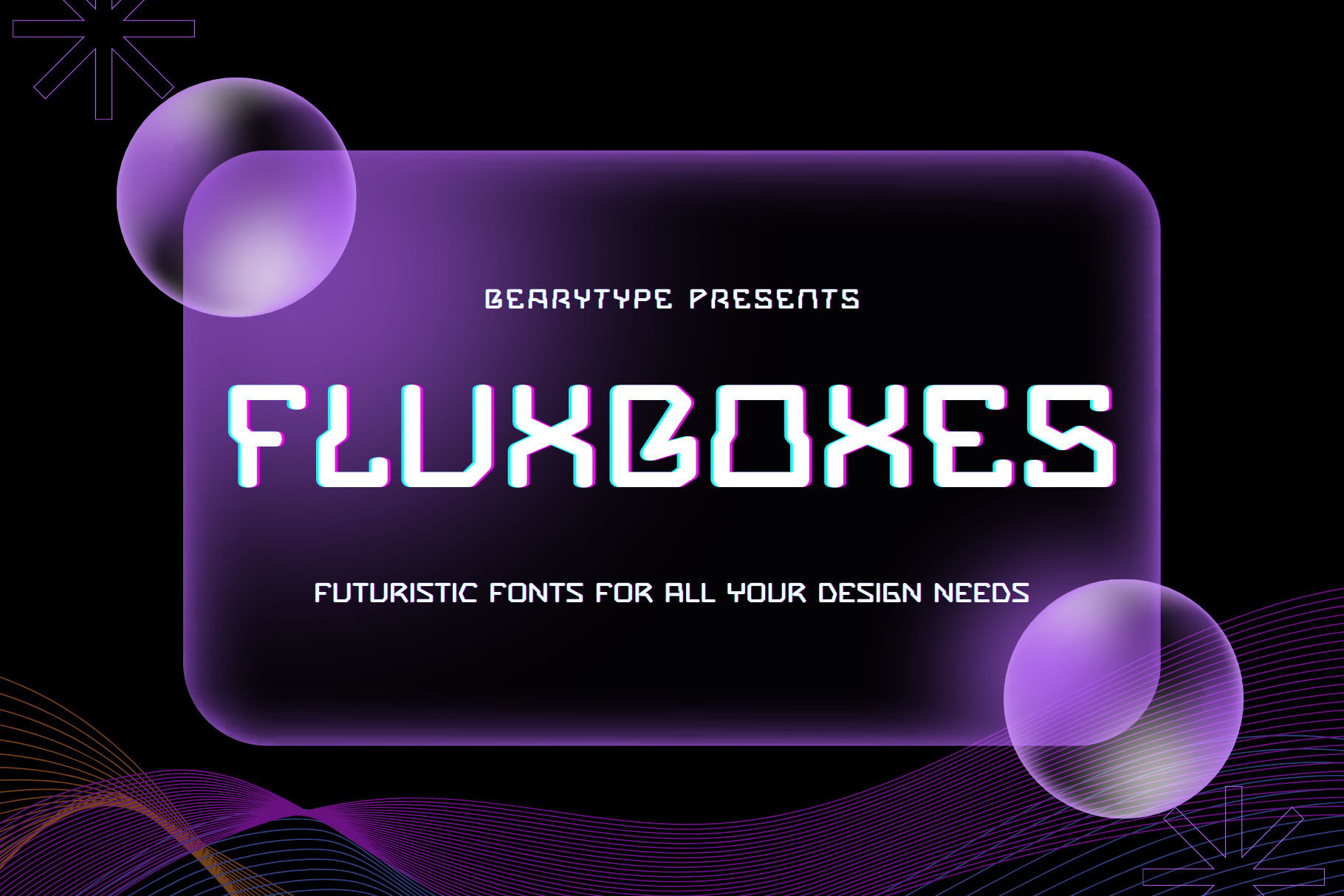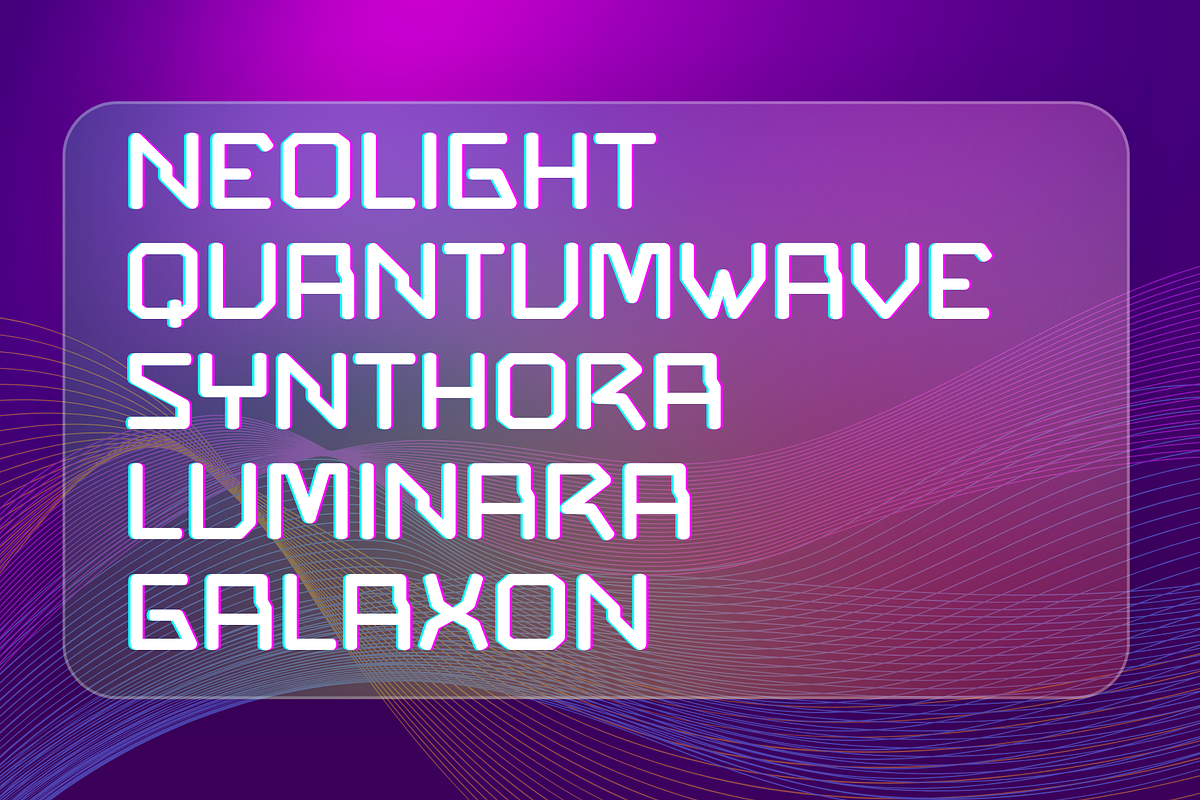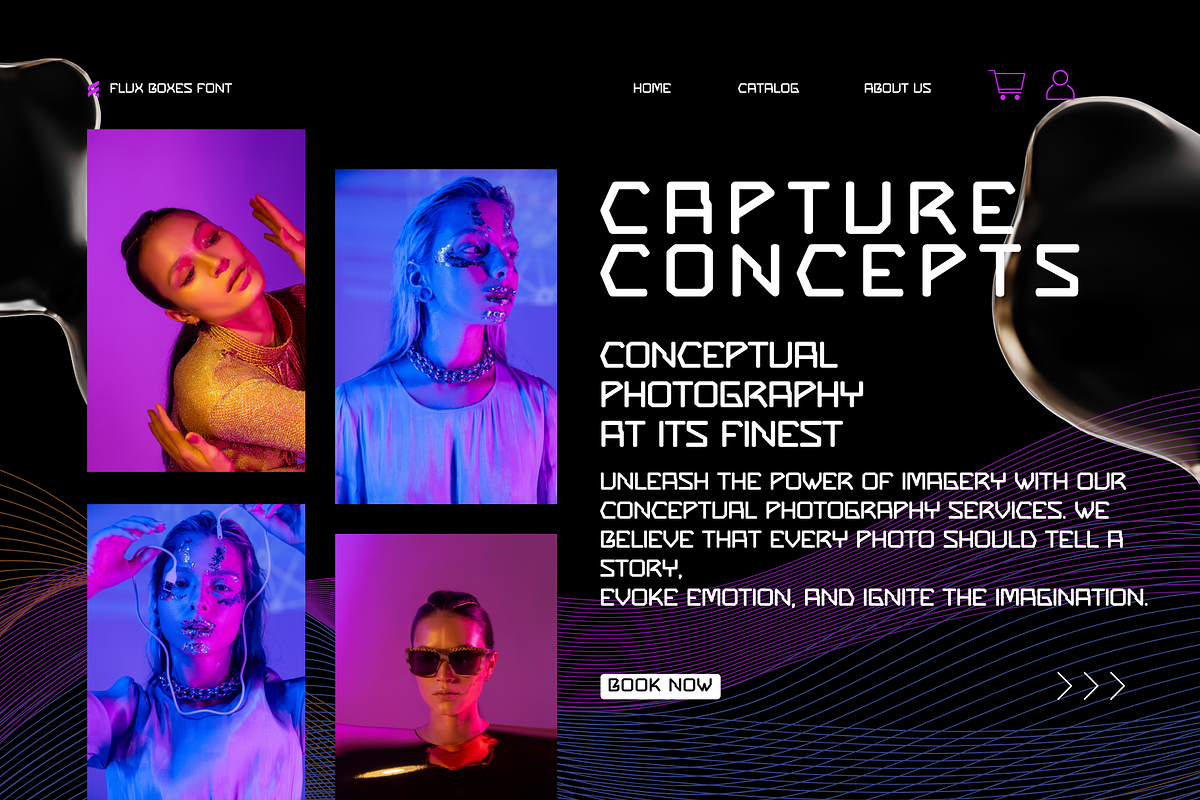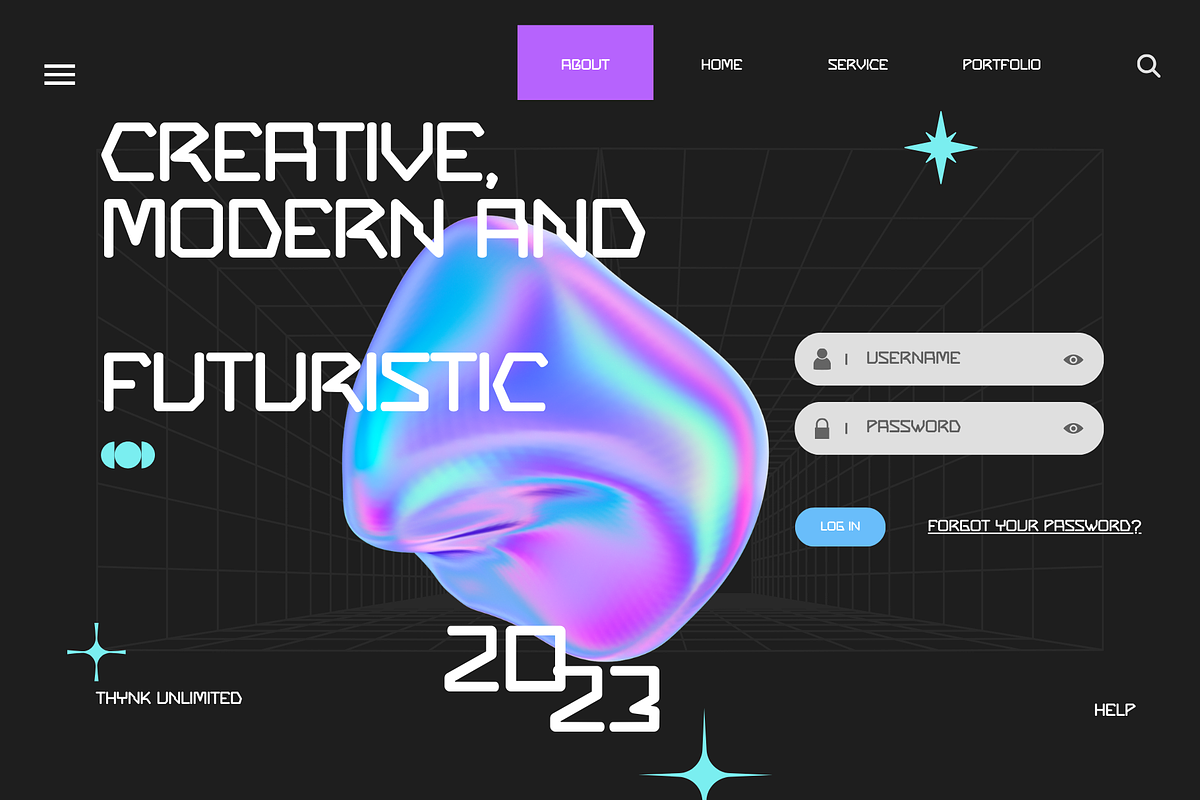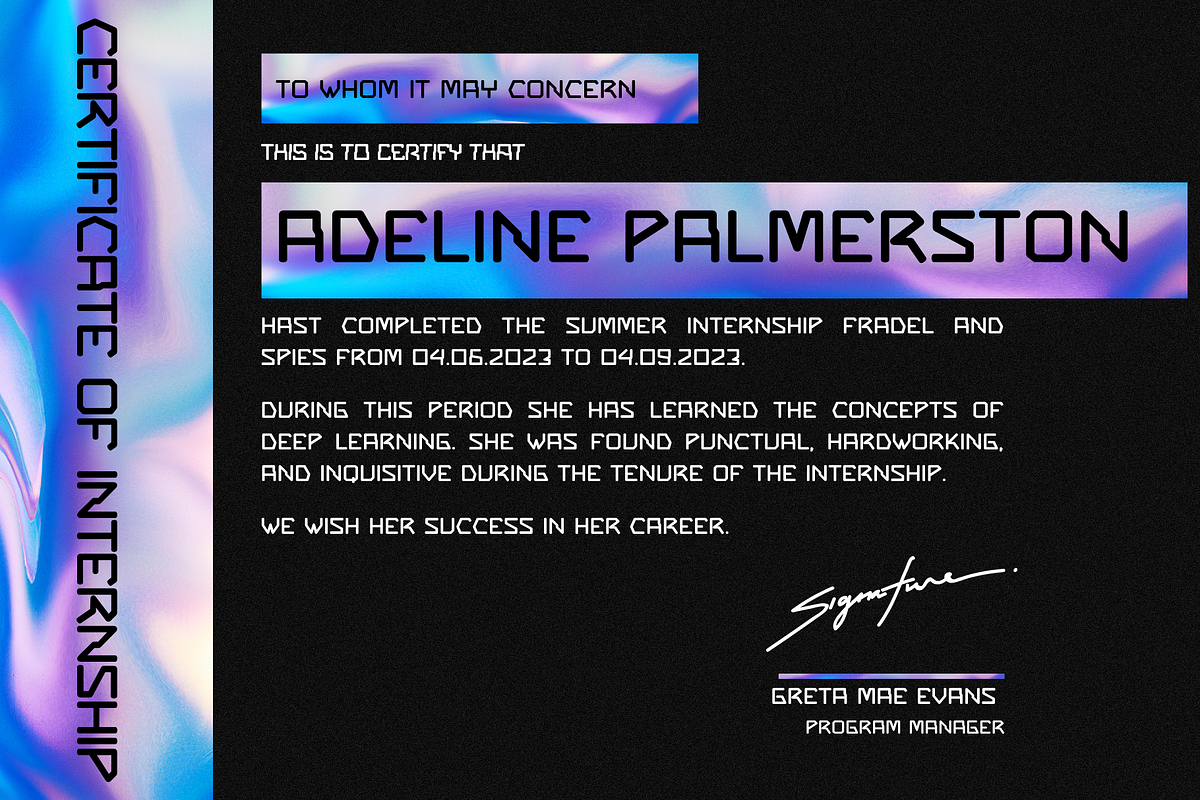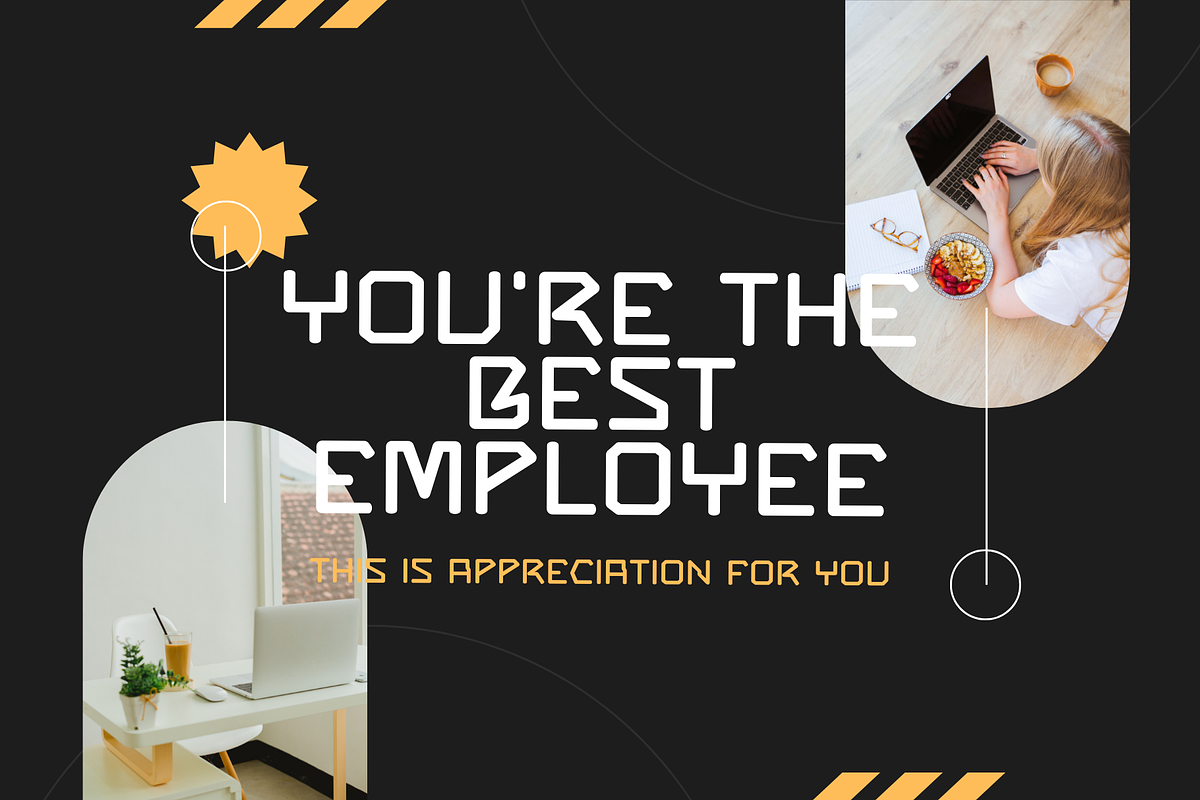
Fluxboxes Futuristic font
Unleash the future with Flux Boxes! This futuristic font is designed to deliver a sleek and sophisticated look to any design project. With clean lines and innovative shapes, Flux Boxes transforms ordinary visuals into extraordinary creations.
Why choose Flux Boxes?
Modern and Futuristic Style: Perfect for creating cutting-edge and visually captivating designs. Versatile Applications: Ideal for branding, posters, user interfaces, and more. Elegance in Every Detail: Adds a refined, futuristic touch to enhance the appeal of your designs.
Take your designs to the next level with Flux Boxes! This font is crafted to captivate and make a lasting impression.